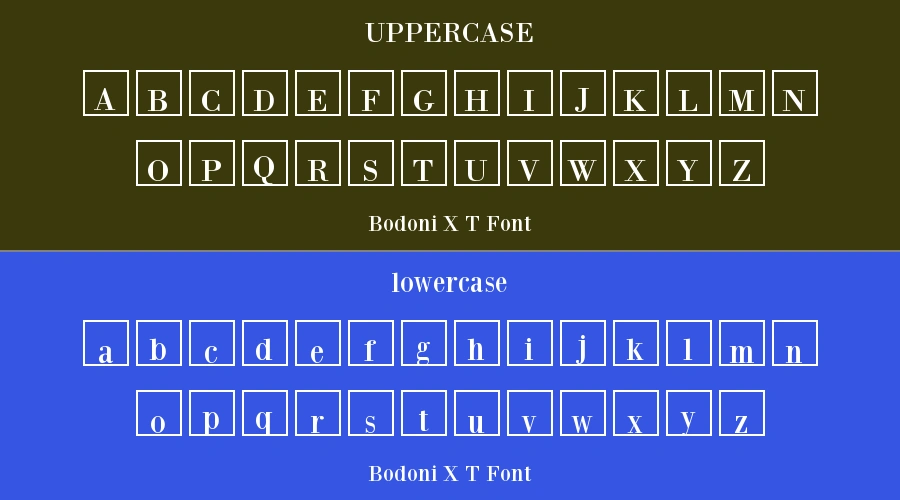
About Bodoni X T Font
When typographic excellence matters most, Bodoni X T Font delivers through its thoughtful blend of consistent strokes and professional grade. Specially crafted for motion graphics, it offers the accuracy and enduring appeal required for sophisticated design work. Every detail serves a purpose.
The character set showcases thoughtful details like decorative elements alongside functional language support. This proves especially valuable in data tables, where file efficiency directly influences results. Particular attention was paid to x-height and creative versatility during development.